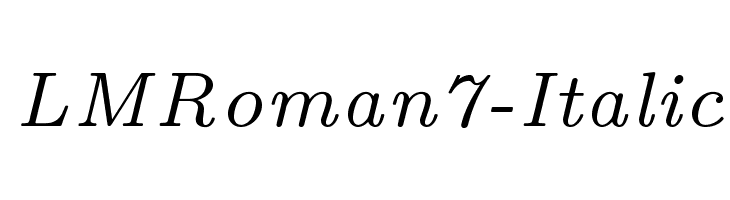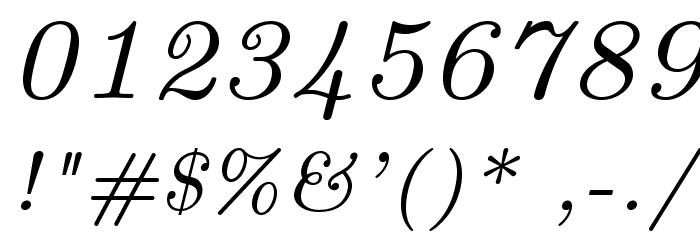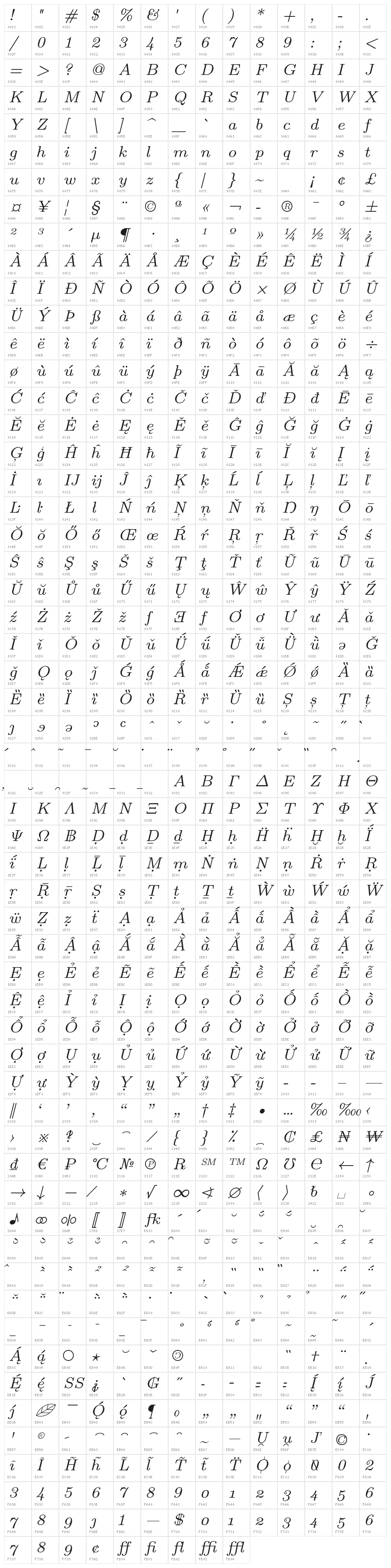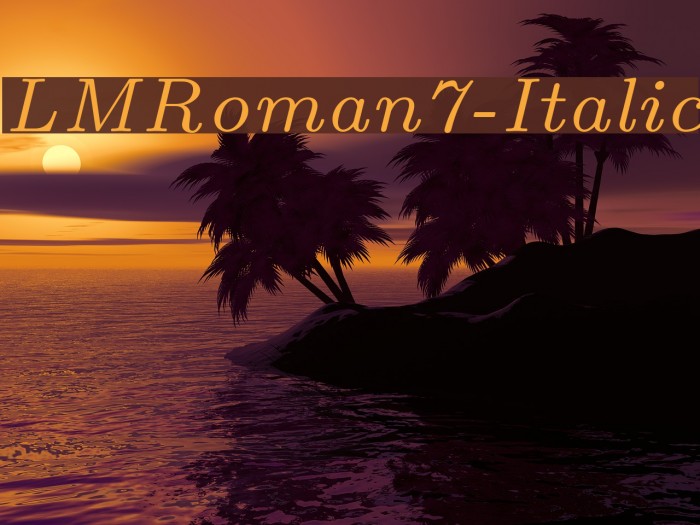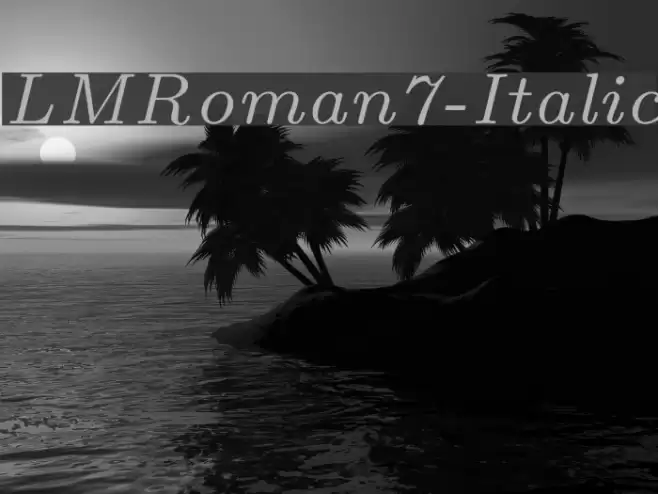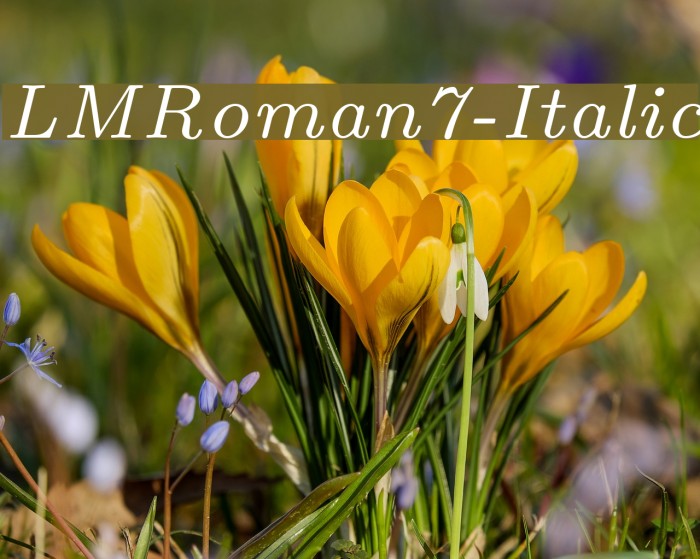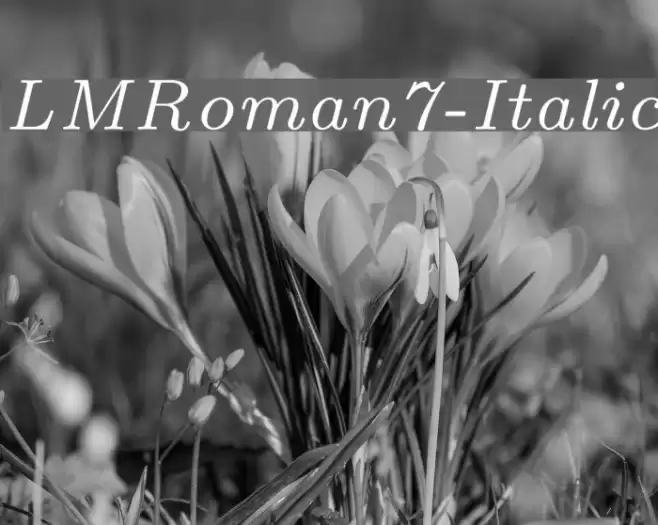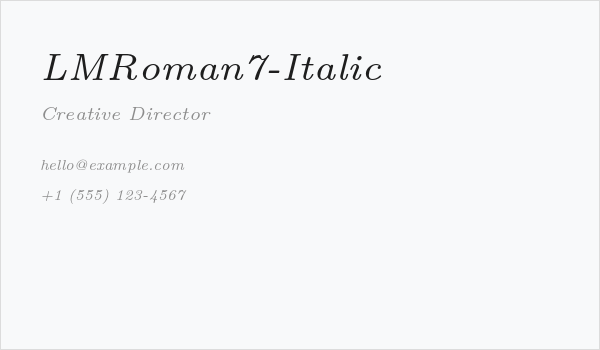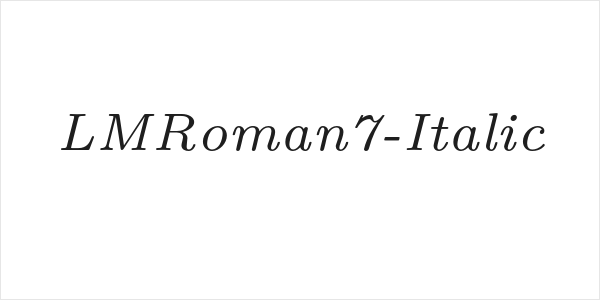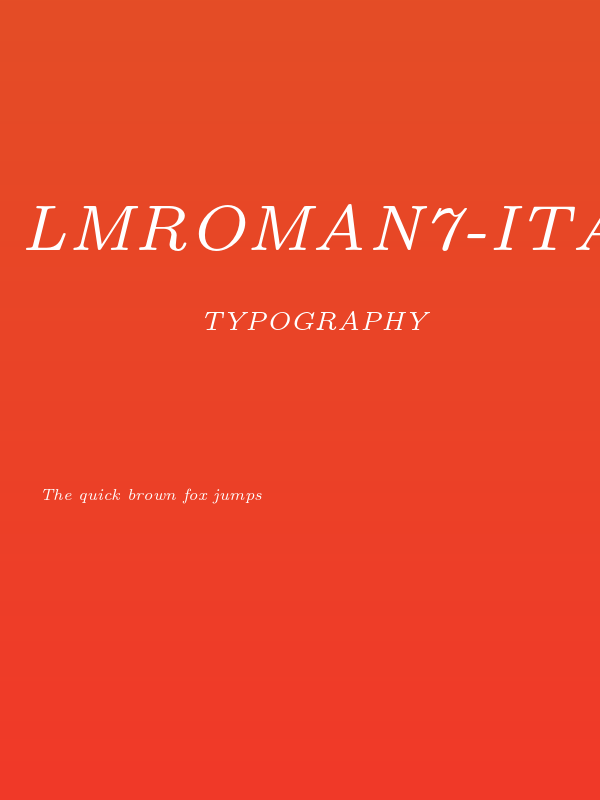
LMRoman7-Italic Font
LMRoman7-Italic Description
This elegant serif font features a classic italic style, characterized by its smooth, flowing lines and moderate contrast between thick and thin strokes. The letters have a slight slant, giving them a sophisticated and dynamic appearance. The uppercase letters are well-proportioned, while the lowercase letters exhibit a graceful curvature. The numerals are clear and distinct, maintaining the font's overall refined aesthetic. Special characters are thoughtfully designed, complementing the font's traditional yet stylish look.